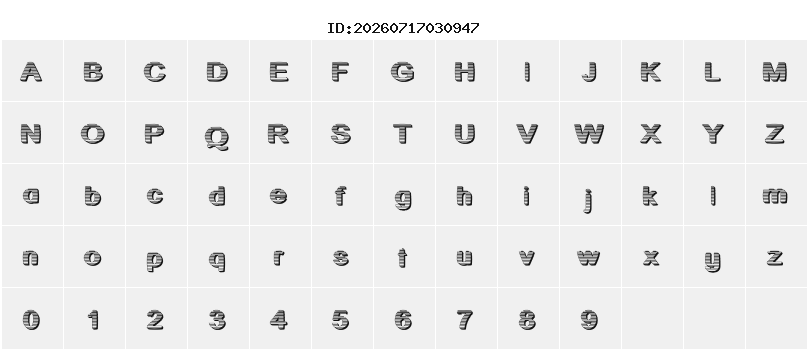
• Font Name: A Cut Above The Rest
• Full Font Name: A Cut Above The Rest
About A Cut Above The Rest.ttf
A Cut Above The Rest.ttf is a modern, elegant sans-serif font designed for ultimate readability and visual harmony. Perfect for branding, headlines, web design, and print materials.